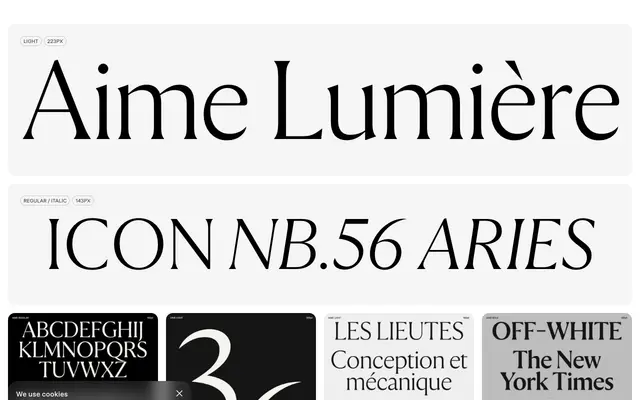
Aime
Family Type · Briton Smith · 2020
A 12-style serif family by Briton Smith with a formal character set, extensive OpenType features and broad Latin language support.
Released in 2020, this serif family runs across four weights from Light to Extra Bold with matching italics, totalling 12 styles. It includes a thorough OpenType feature set: small caps, oldstyle figures, fractions, superscripts, subscripts and discretionary ligatures. Language coverage spans over 70 Latin-script languages, making it a capable choice for multilingual publishing and brand work.
The specimen and glyph set suggest a refined serif with classical proportions and a range of OpenType features including small caps and oldstyle figures, consistent with transitional serif conventions. The structured weight range and formal specimen copy reinforce this classification.